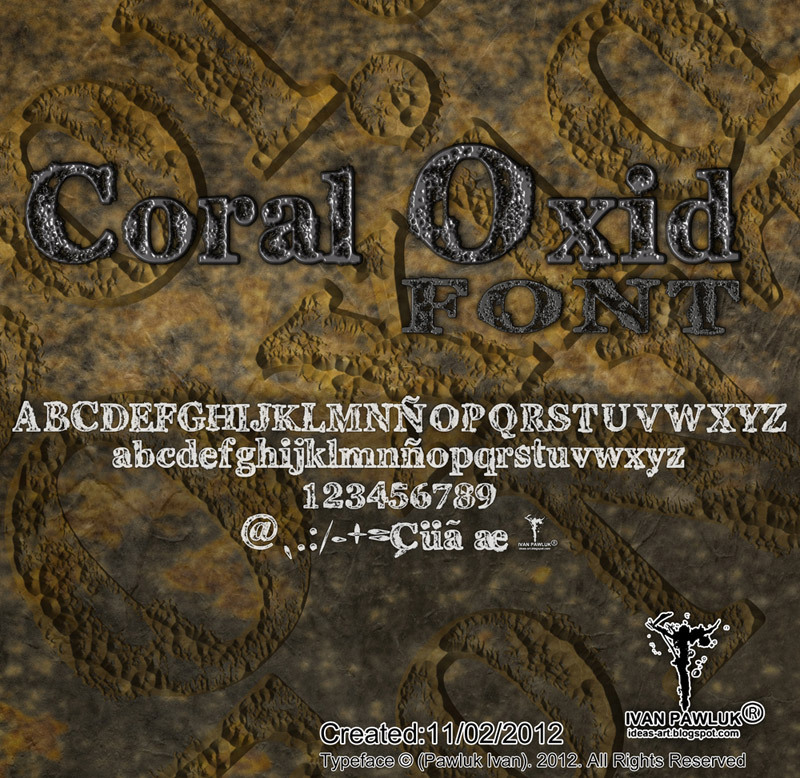
Coral Oxid by Pawluk Iva is a free eroded display font with stout slab serifs and the battered surface of letterpress type. Its wear varies from speckled edges to scraped patches, yet the underlying shapes remain formal and upright.
The chipped texture can echo weathered photography, distressed paper, and ephemera in poster designs. It suits album packaging, bar branding, and event graphics. Across these uses, the contrast between sturdy forms and damaged ink gives the lettering its found-object quality.